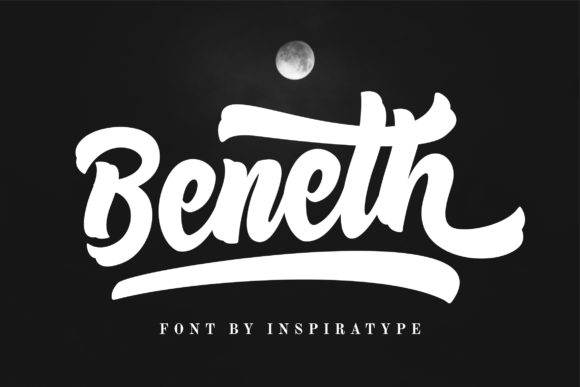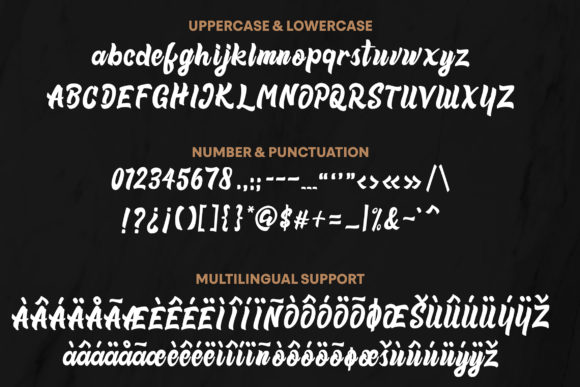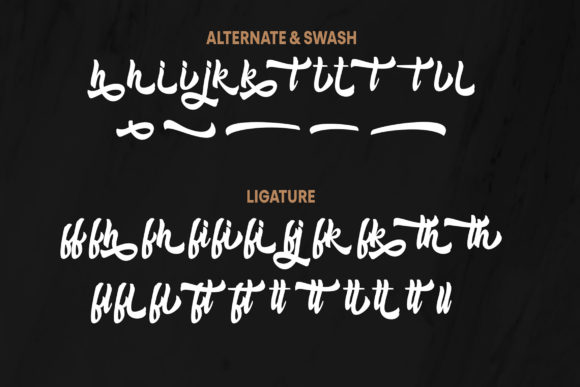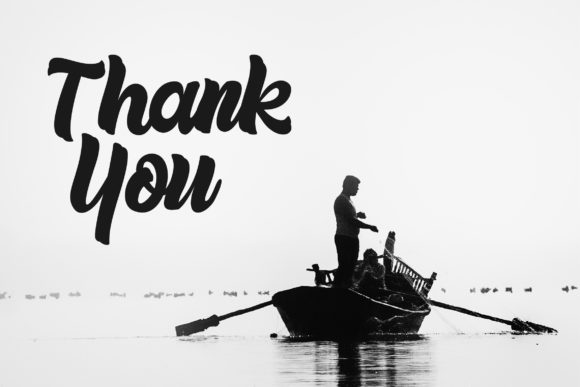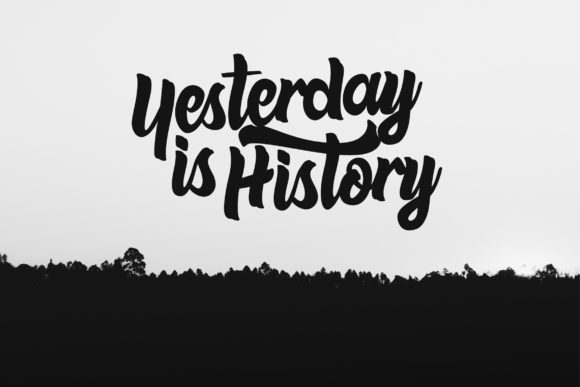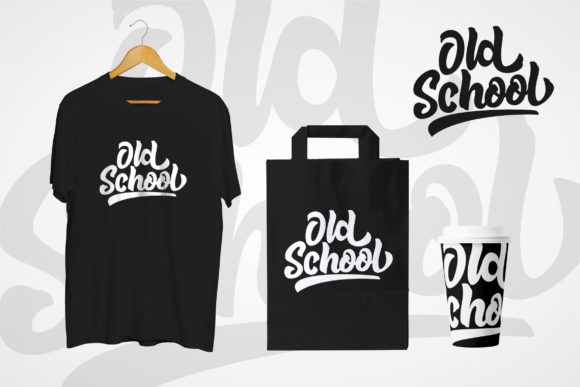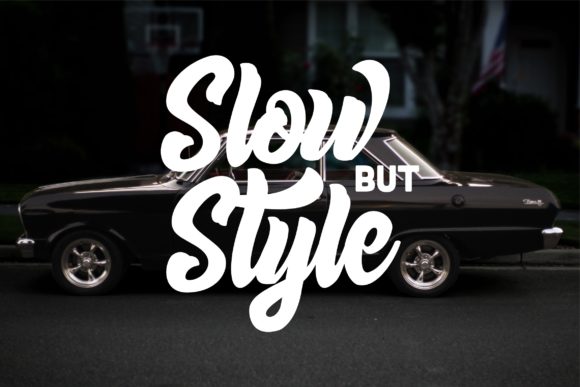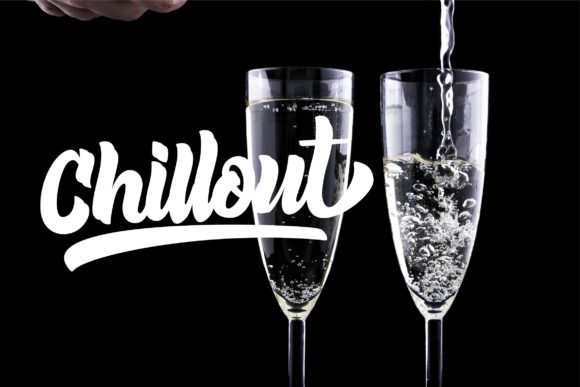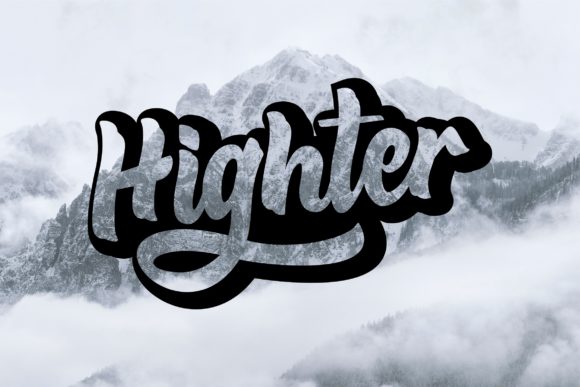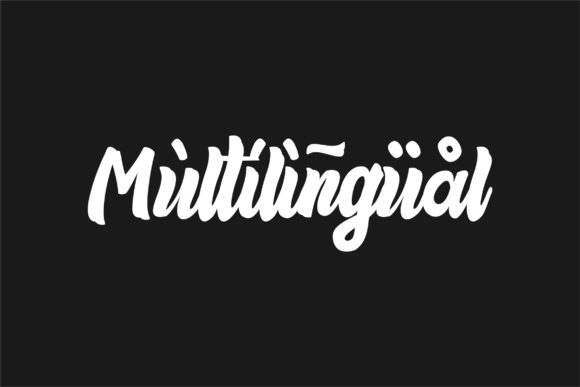
Beneth Font
About Beneth Font
Inspired by classic movie posters, Beneth is a cool and charming handwritten font with a unique feel. Use it to turn any design idea into a true standout!